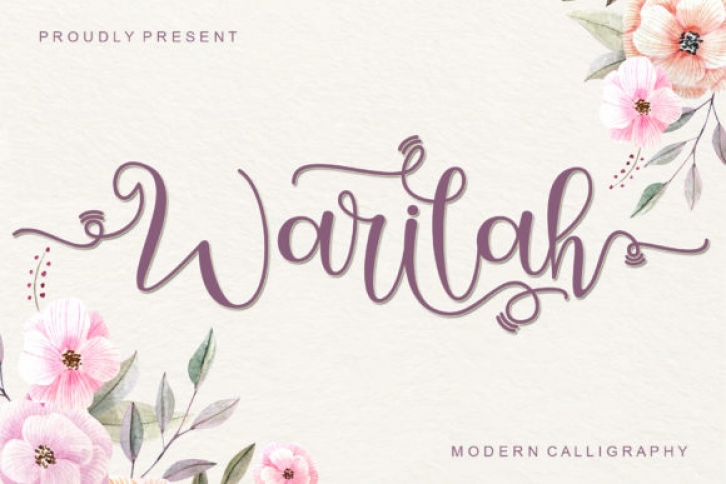
Warilah is a magical and sweet calligraphy typeface with characters that dance along the baseline. It has a casual, yet elegant touch. This font is PUA encoded which means you can access all of the glyphs and swashes with ease!